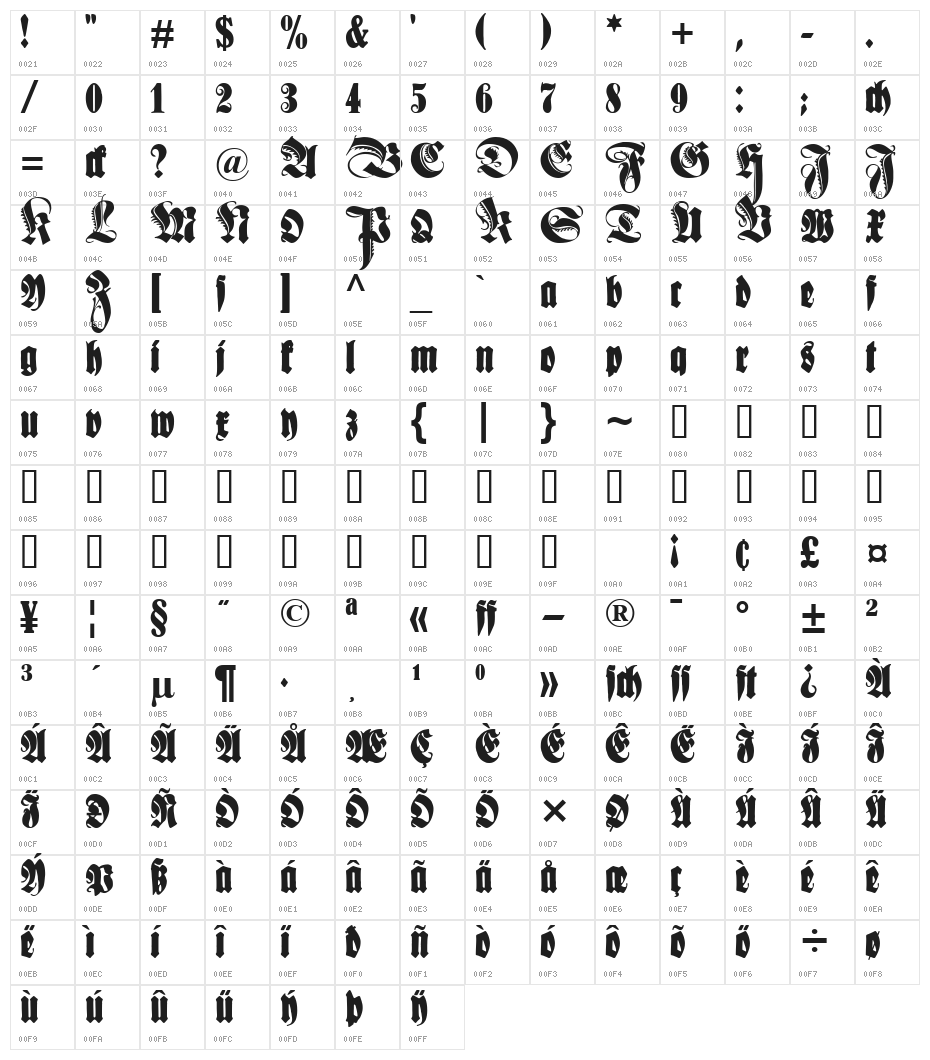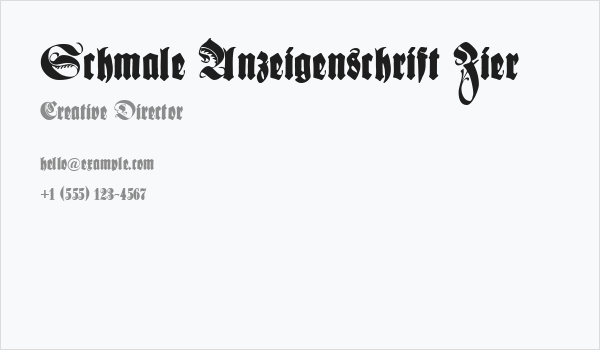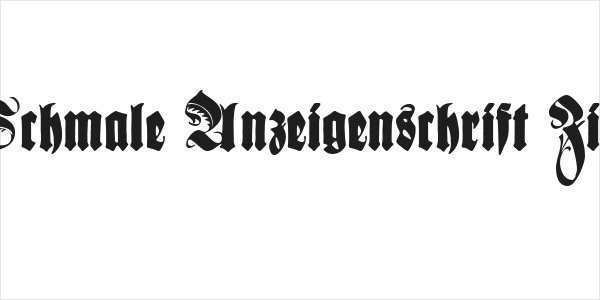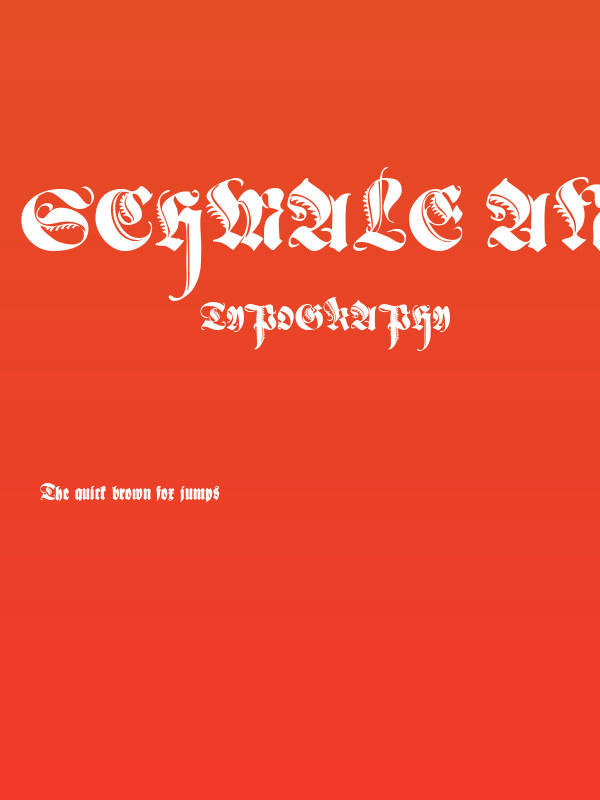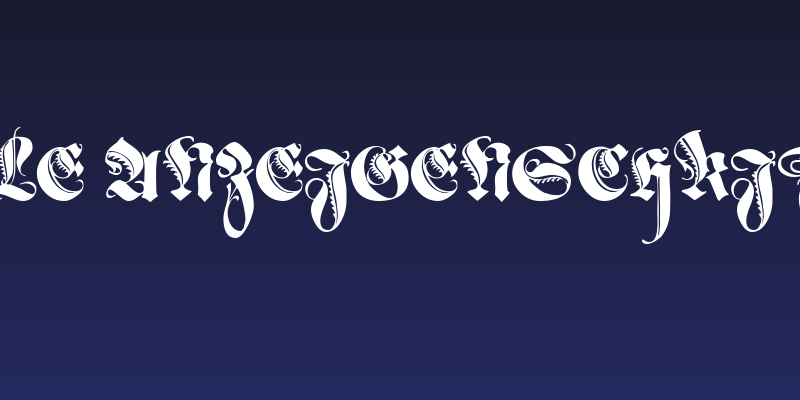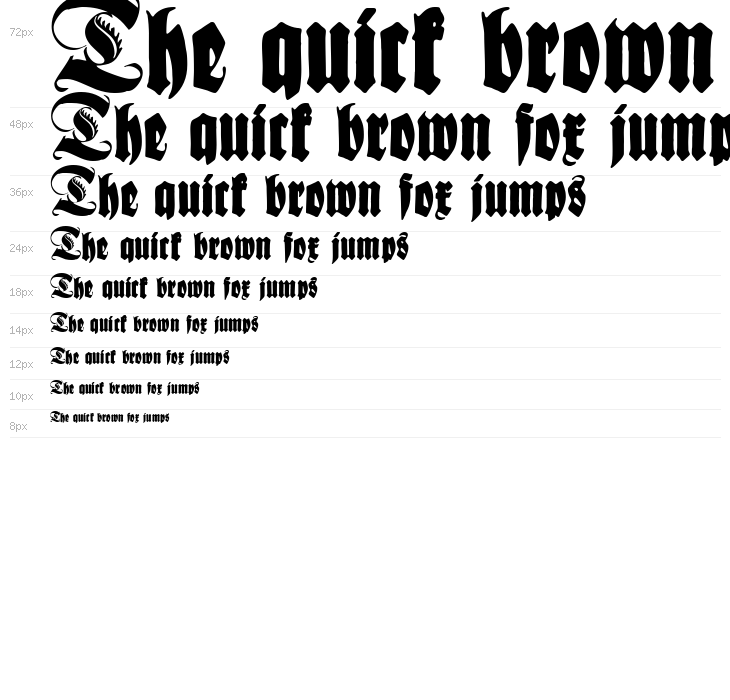
Schmale Anzeigenschrift Zier Font
Schmale Anzeigenschrift Zier Description
This font is a striking example of Blackletter style, characterized by its intricate and ornate design. The uppercase letters feature elaborate flourishes and sharp, angular lines, giving them a dramatic and historical appearance. The lowercase letters maintain a bold and dense structure, ensuring readability while preserving the decorative nature. The numerals are equally bold, with unique curves and angles that complement the overall aesthetic. Special characters are designed with the same attention to detail, making them stand out. This font exudes a sense of tradition and elegance, reminiscent of medieval manuscripts and Gothic architecture.
| Proposed Projects | Ideal for projects requiring a historical or Gothic touch, such as book covers, posters, or branding for vintage-themed events. |